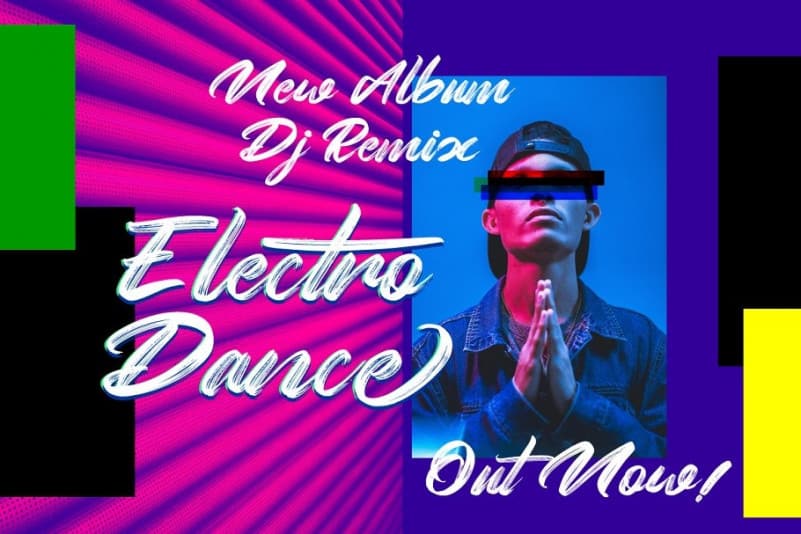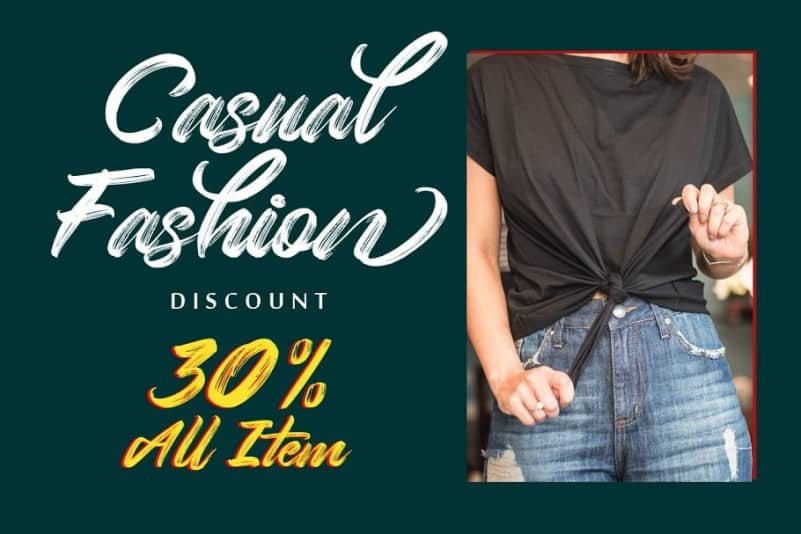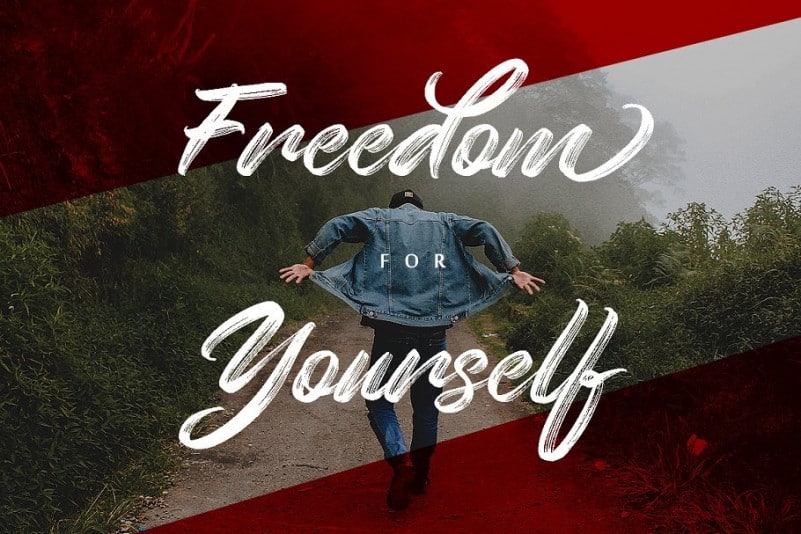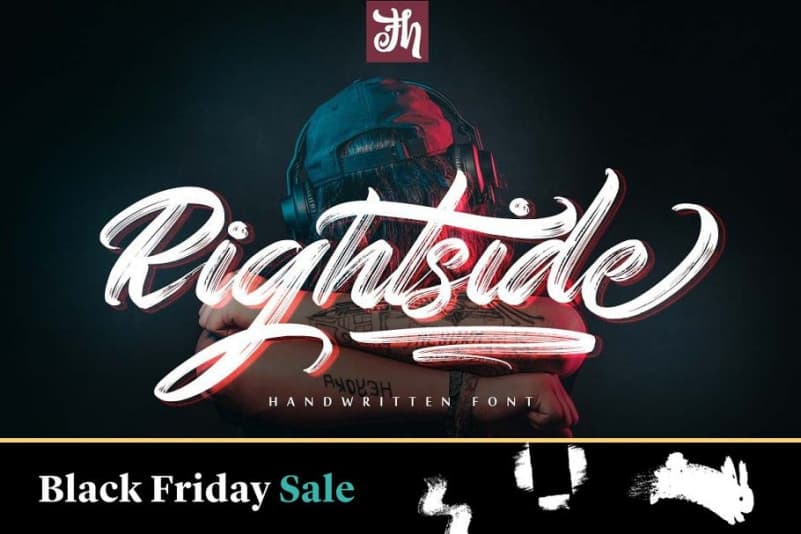
Rightside Brush Font
Rightside Brush Font is Display font with brush style. This typeface is Script Font with Handlettering Dry Brush Style manufactured by FHFont, with opentype feature include of the font. Suitable for design, element design, wedding, event, t-shirt, logo, badges, sticker, and awesome work, etc…